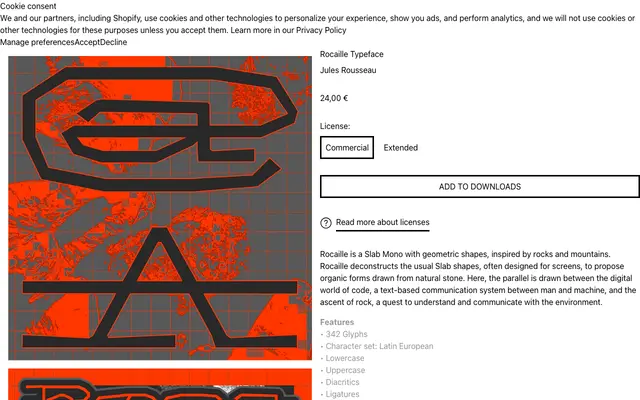
Rocaille Typeface
A slab monospaced typeface by Jules Rousseau that replaces conventional screen-optimised slab forms with angular, stone-like organic shapes.
Designed by Jules Rousseau, Rocaille draws a conceptual line between the digital language of code and the physical language of rock climbing, treating both as systems of communication between human and environment. The geometric construction departs from the smooth, screen-friendly conventions of most slab serifs, favouring rougher, more mineral forms. It covers 342 glyphs across Latin European, including diacritics, ligatures, mathematics and currency symbols.
The foundry explicitly describes Rocaille as a Slab Mono, combining monospaced letterforms with slab serif construction and geometric shapes inspired by natural stone.